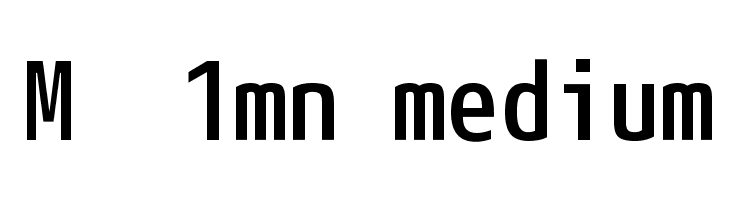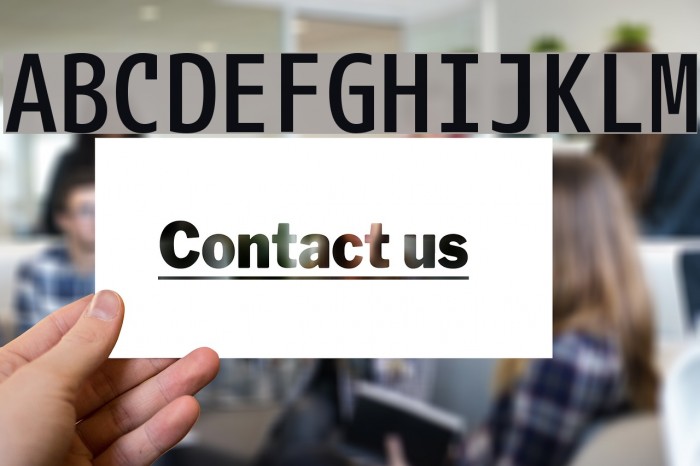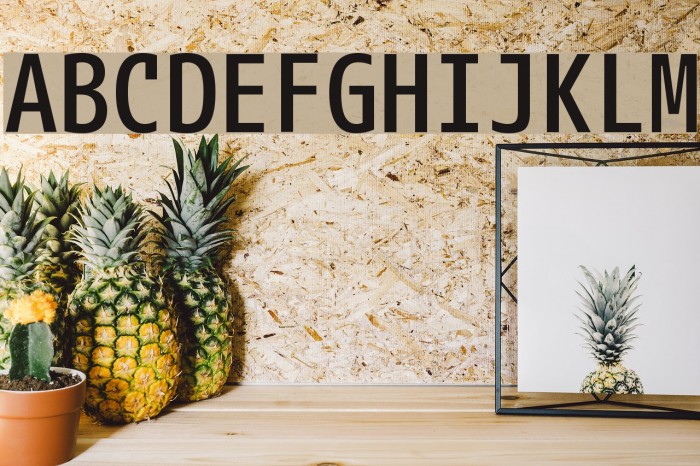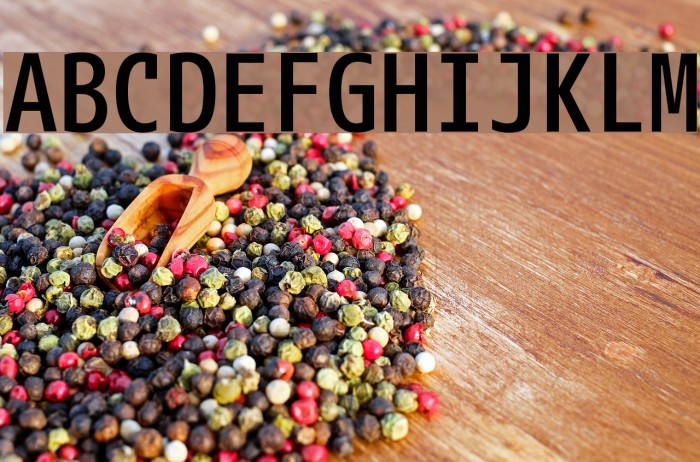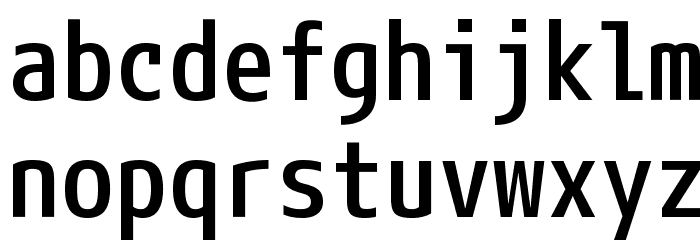
M+ 1mn medium Font
M+ 1mn medium Description
This font features a clean and modern sans-serif design with uniform stroke widths and a straightforward, geometric structure. The uppercase letters are bold and assertive, while the lowercase letters maintain a consistent style that complements the uppercase. The numerals are clear and easy to read, making them suitable for various applications. Special characters are well-defined, adding versatility to the font's use. The overall appearance is professional and contemporary, making it ideal for digital and print media.
A modern, geometric sans-serif font with clean lines and uniform strokes from Uncategorized fonts.
- Proposed Projects: Ideal for branding, web design, advertising, and editorial layouts.